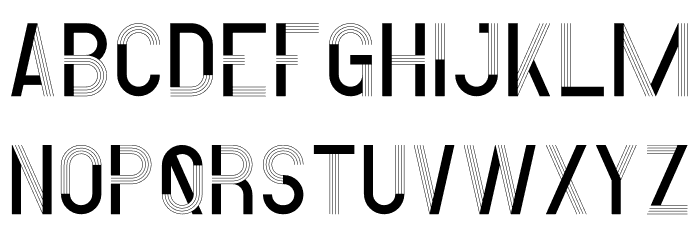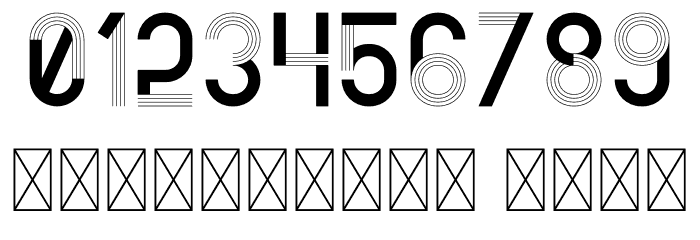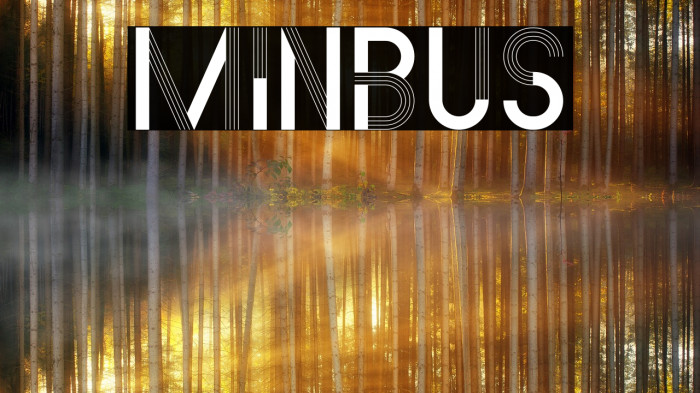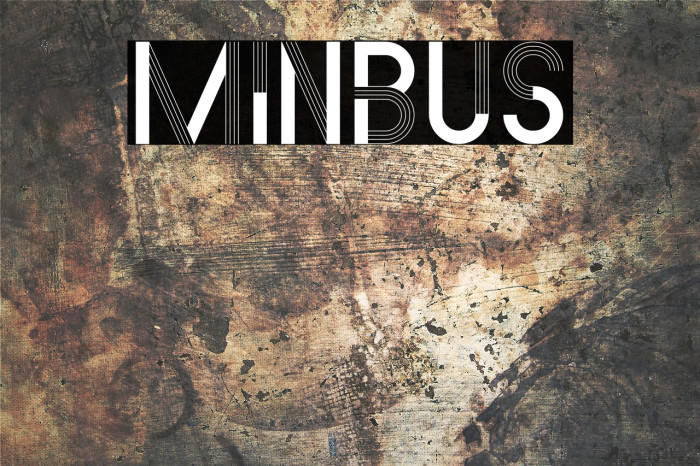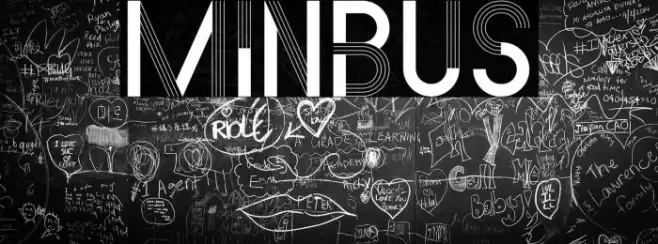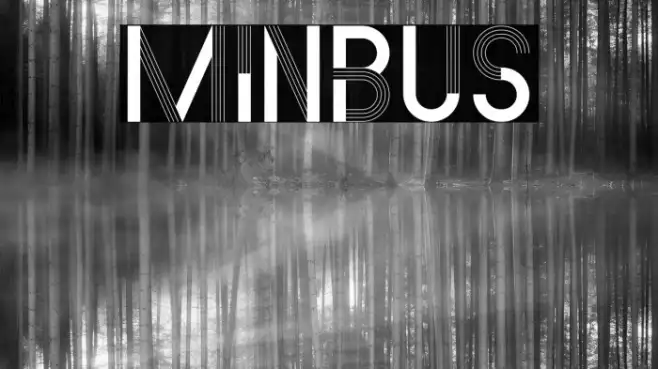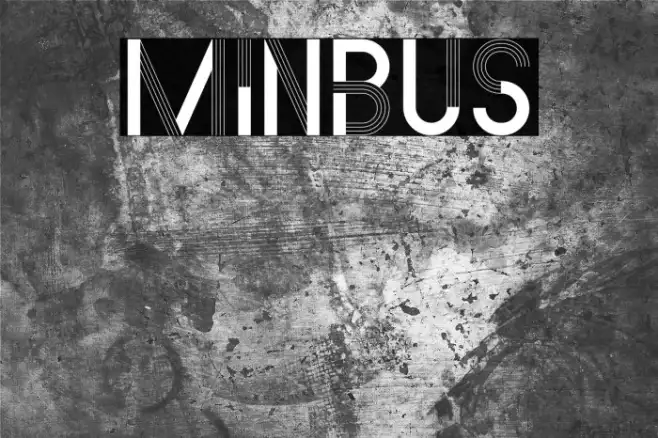
Minbus Font
This font features a unique blend of geometric and linear elements, creating a striking visual impact. The uppercase letters are bold and structured, with a mix of solid and outlined strokes that give a sense of depth and movement. The lowercase letters maintain this geometric style, ensuring consistency across the typeface. Numbers are similarly designed, with a modern and artistic flair. Special characters are creatively integrated, maintaining the overall aesthetic. This font's design is both innovative and versatile, making it suitable for a variety of creative applications.
A geometric and linear font with bold, structured characters and artistic flair.
- Proposed Projects: Ideal for modern branding, posters, album covers, and digital art projects.